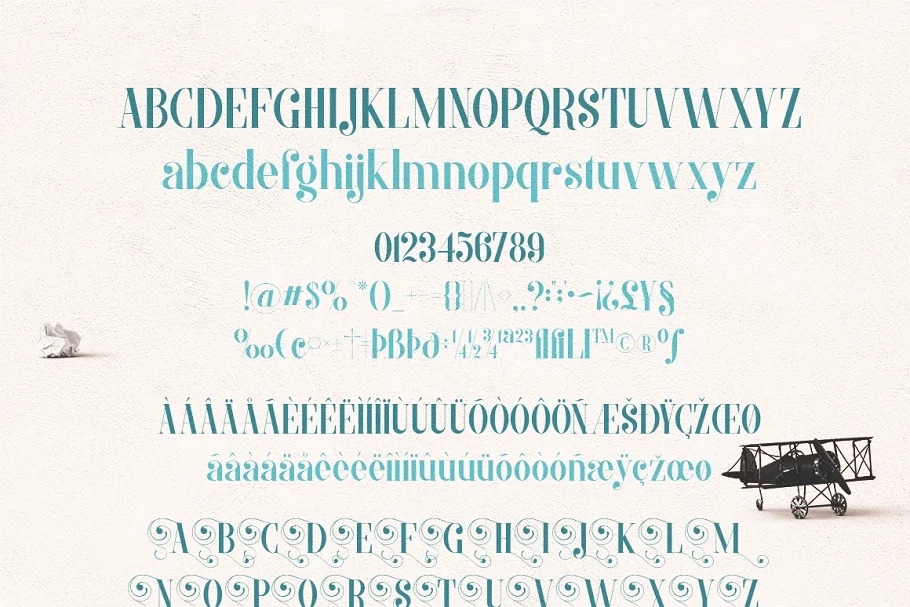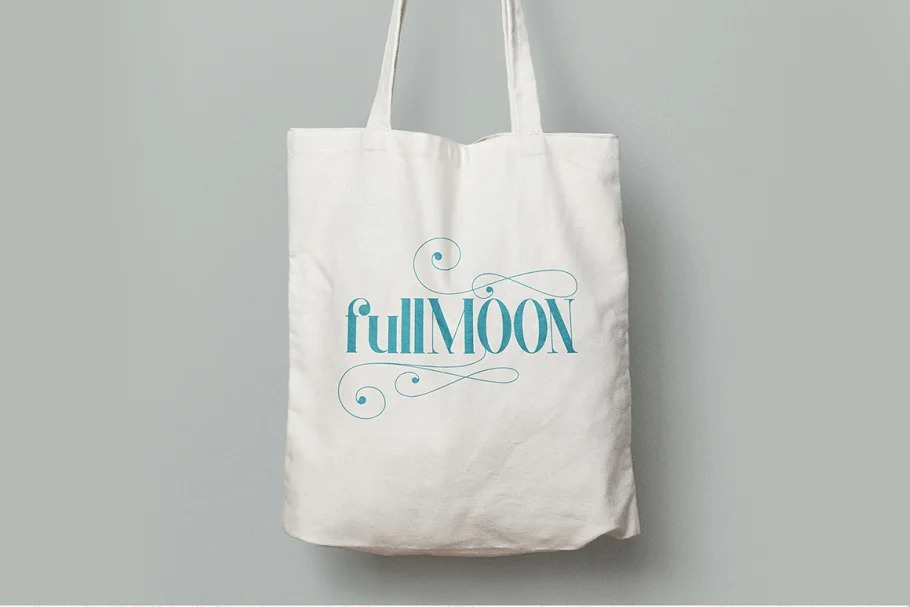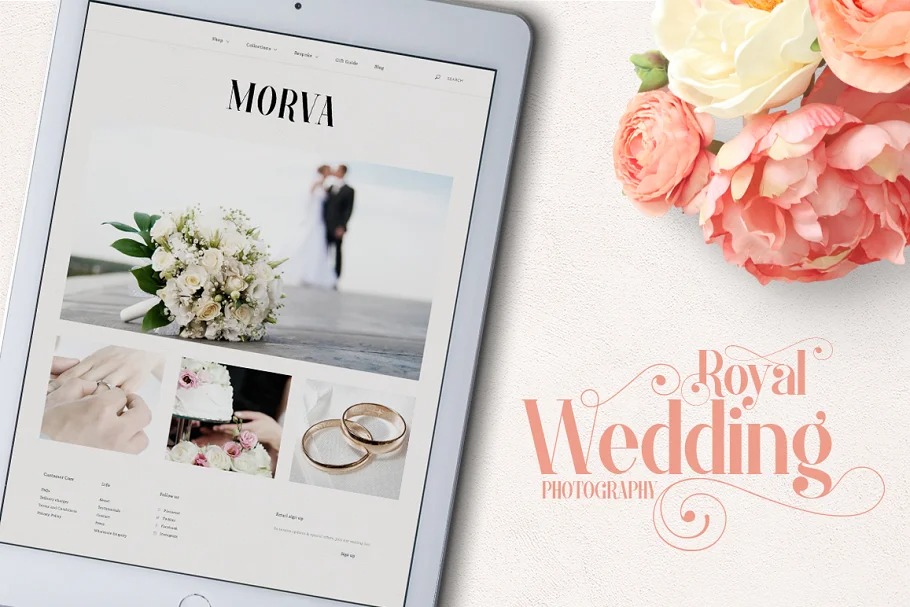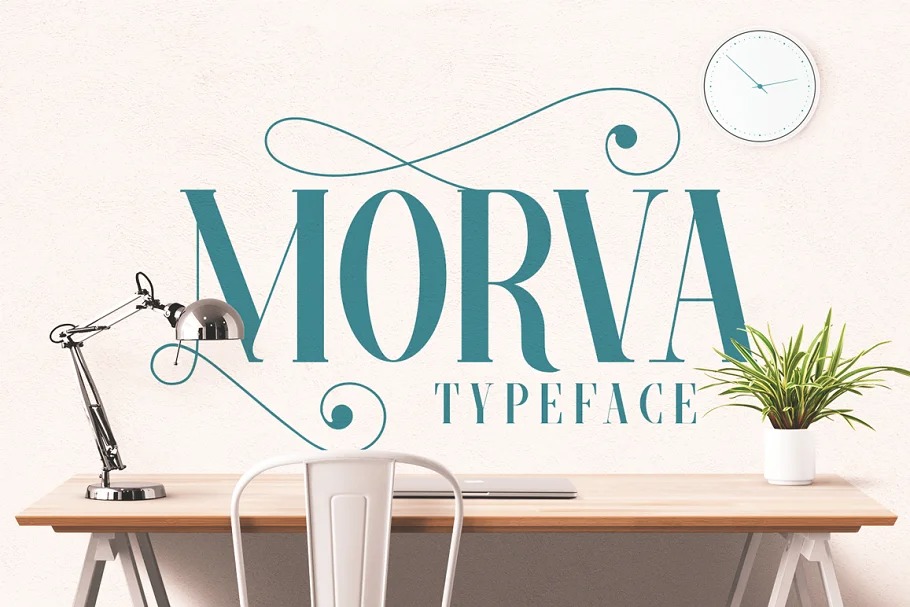
Morva Serif Font
It’s a modern and elegant serif font that has beautiful and unique stylistic alternates. MORVA typeface is suitable for simple logo design, website header, wedding design, menu fonts for website. to design fashion, and others who have a minimalist and simple concept.